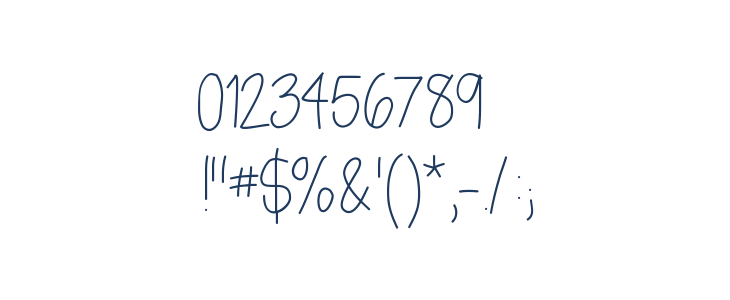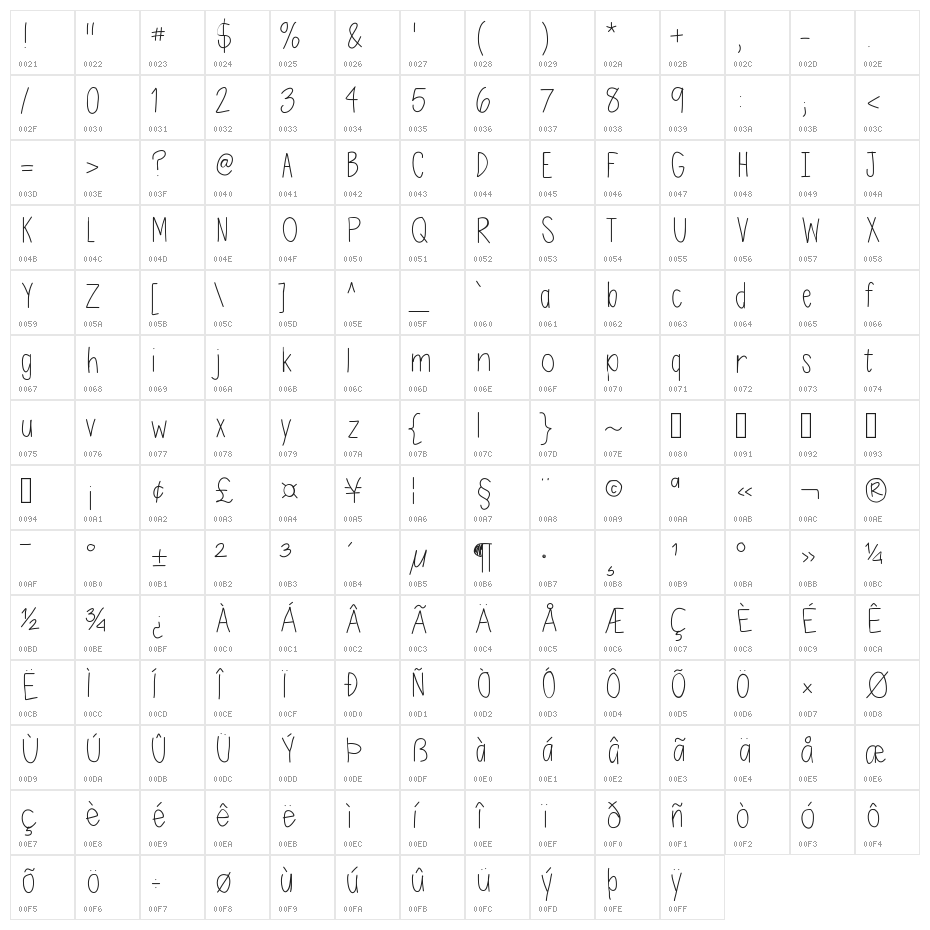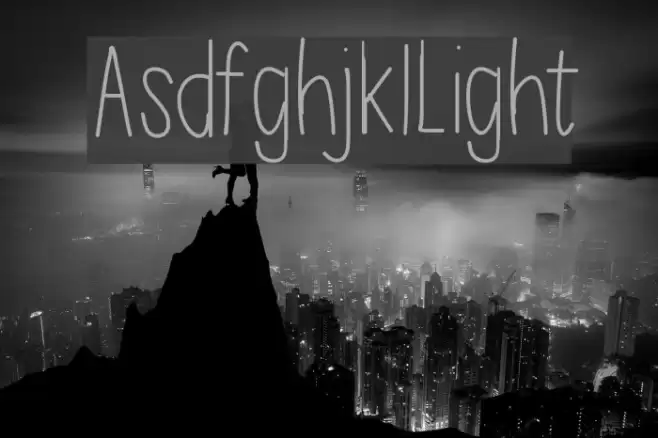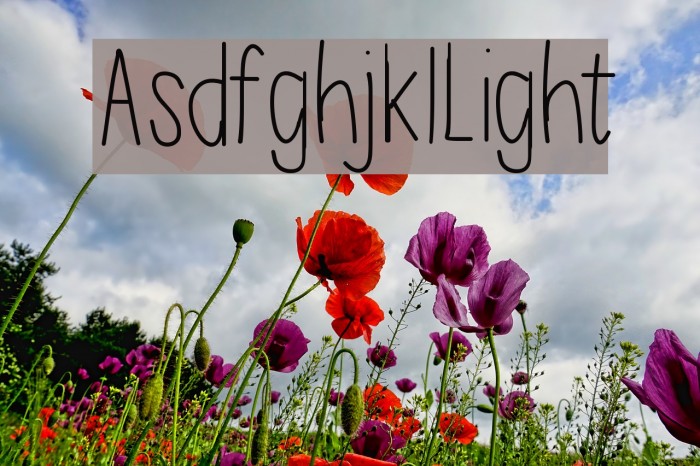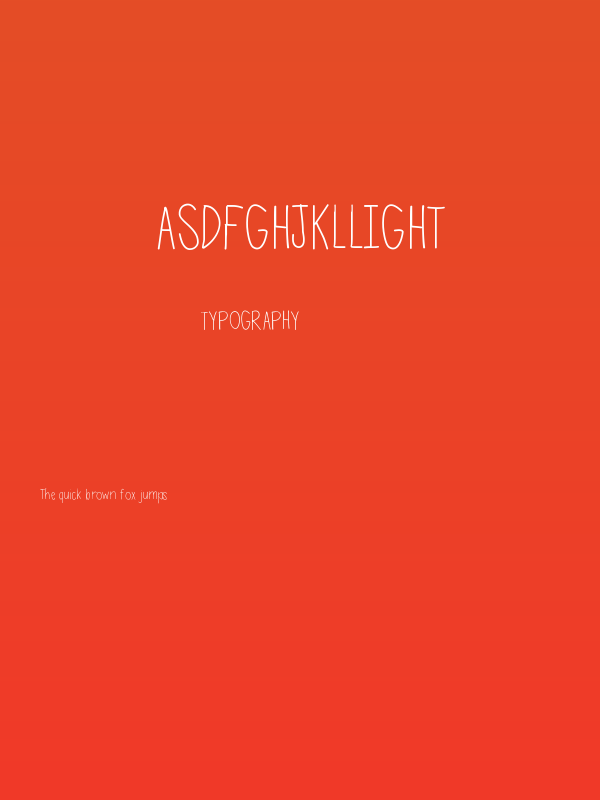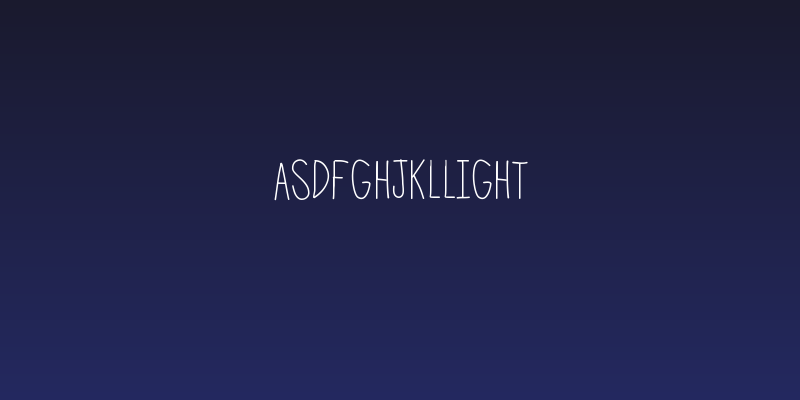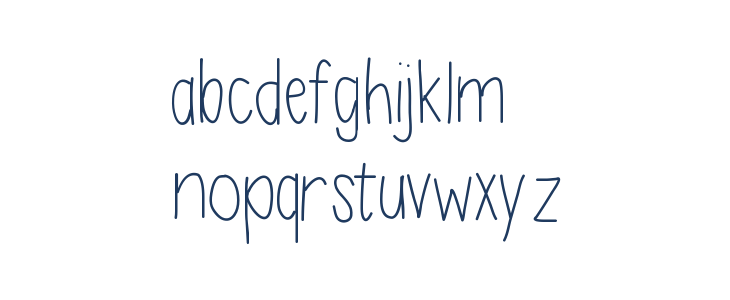
AsdfghjklLight Font
AsdfghjklLight Description
This font features a playful and casual handwritten style with tall, narrow characters. The strokes are consistent in thickness, giving it a uniform appearance. The letters are slightly rounded, adding a friendly and approachable feel. The uppercase and lowercase letters maintain a cohesive look, while the numerals and special characters complement the overall design. This font is ideal for projects that require a personal touch, such as invitations, greeting cards, or informal branding.
| Use Case | Headlines, Informal text, Personal projects |
| Proposed Projects | Ideal for invitations, greeting cards, informal branding, and personal projects. |